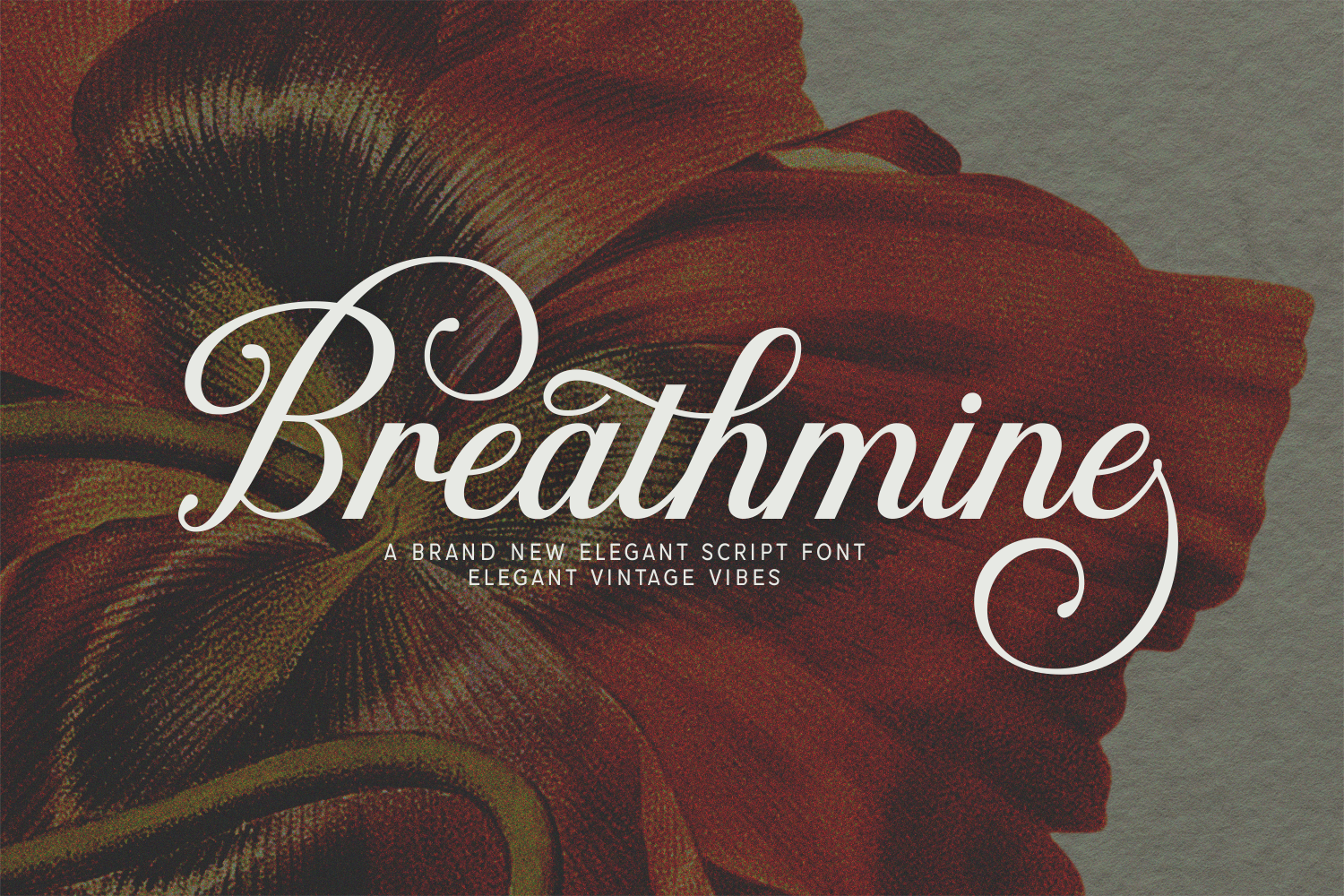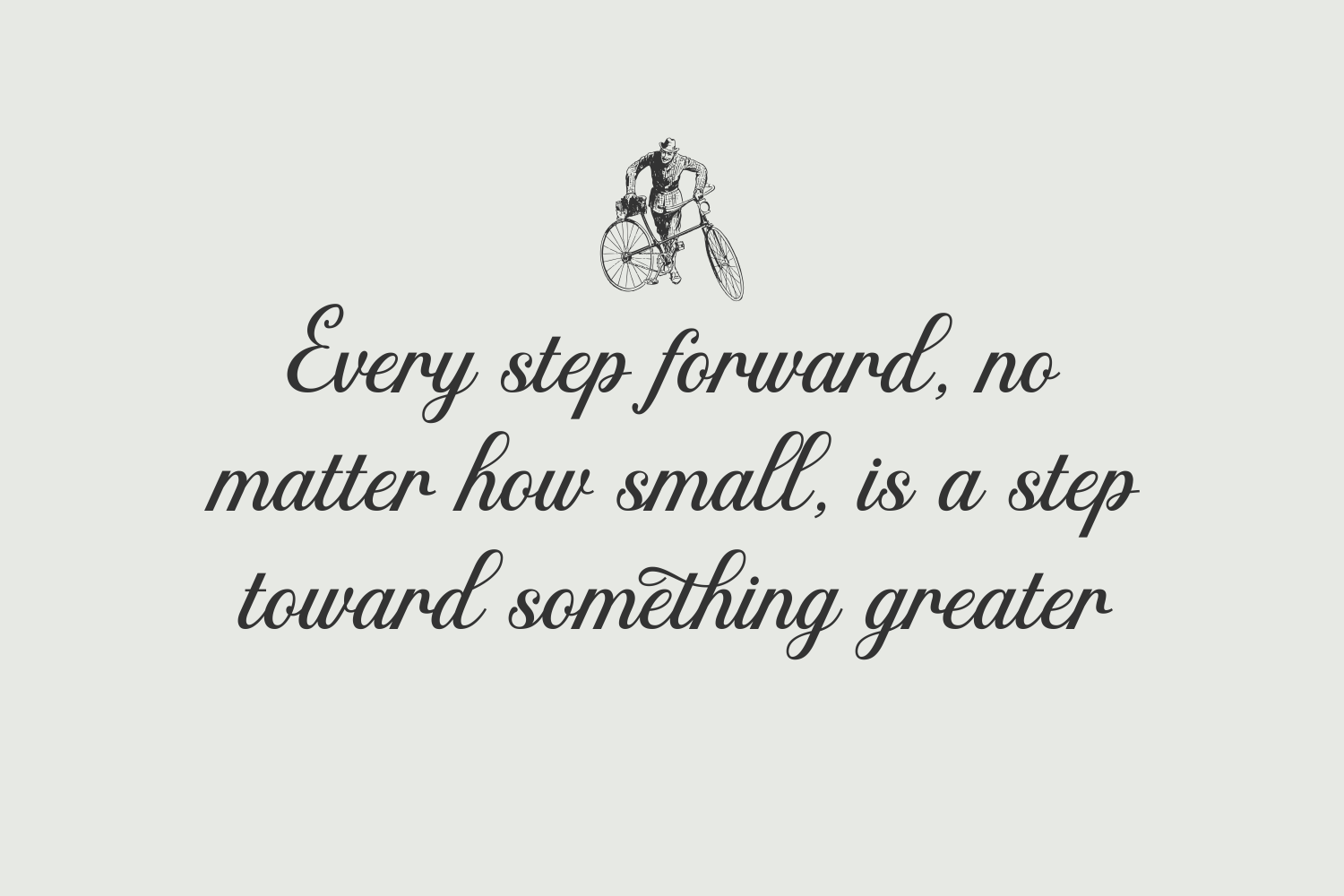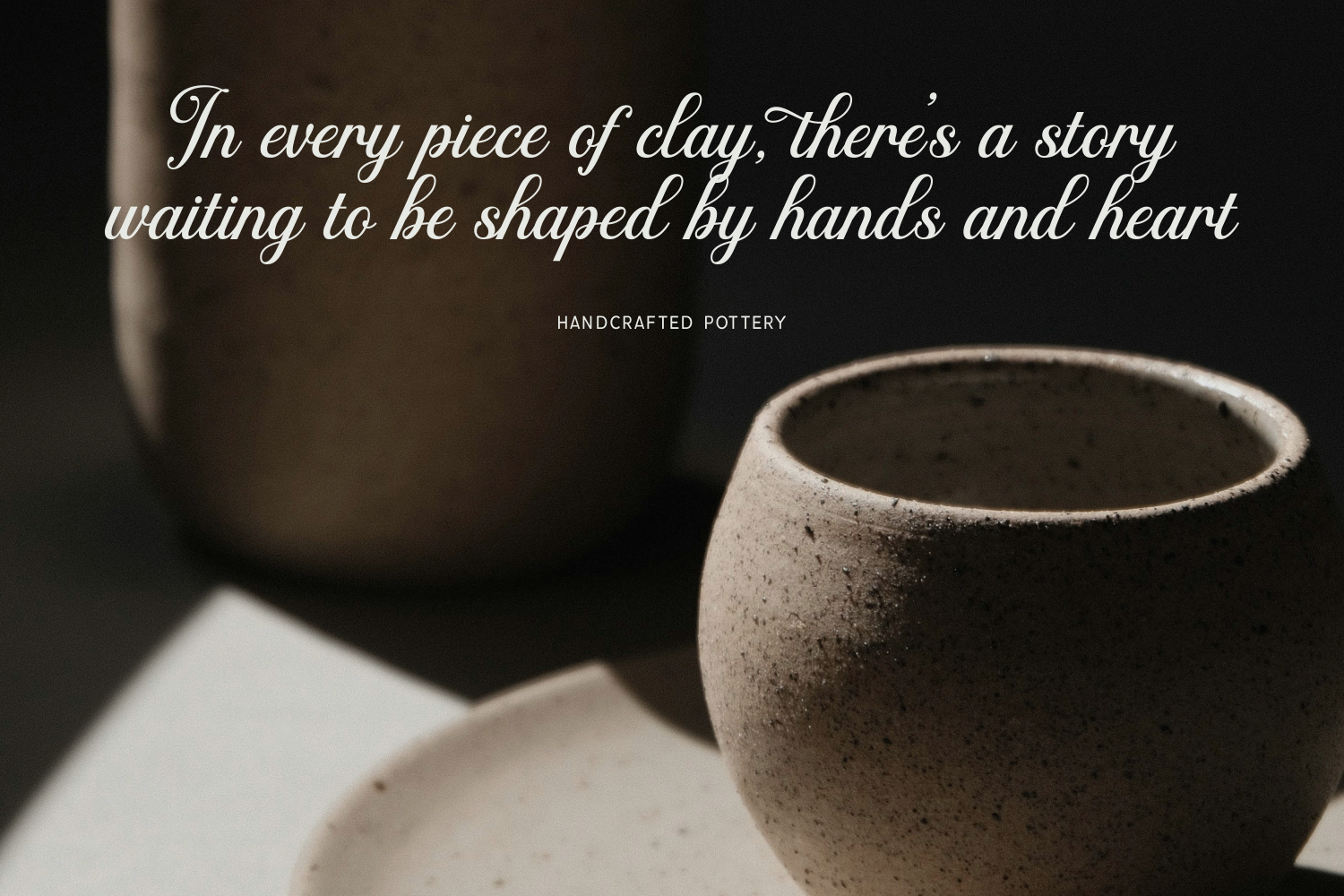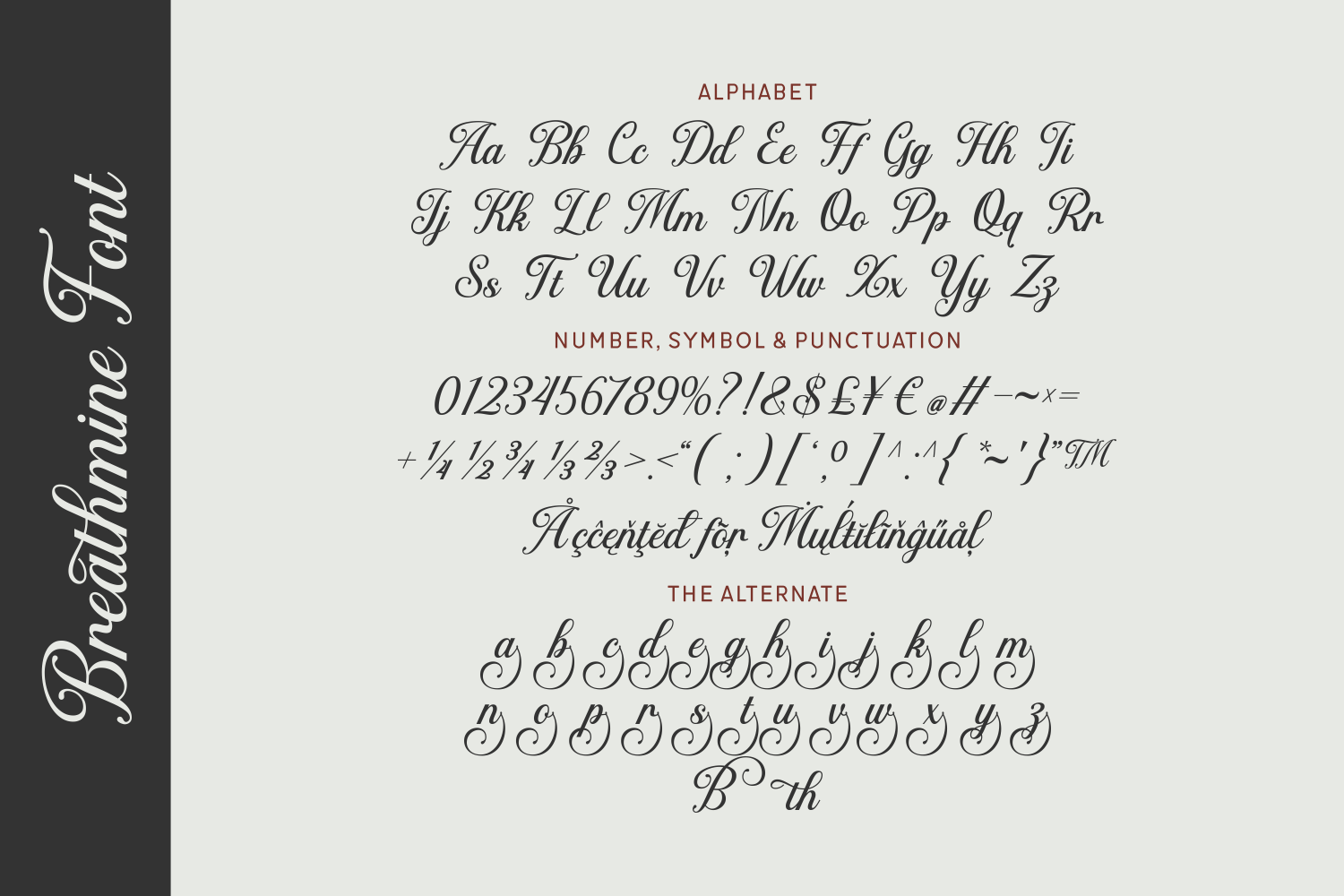
Breathmine is an elegant script font that merges vintage sophistication with modern flair. Its delicate curves and ornate swashes evoke timeless romance, making it a perfect choice for wedding stationery, upscale branding, and boutique packaging. Breathe life into your designs with this graceful and refined typeface.